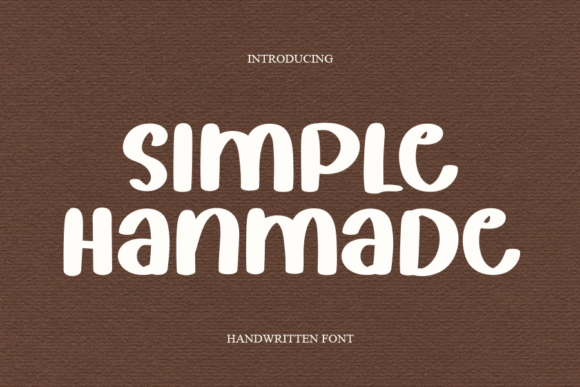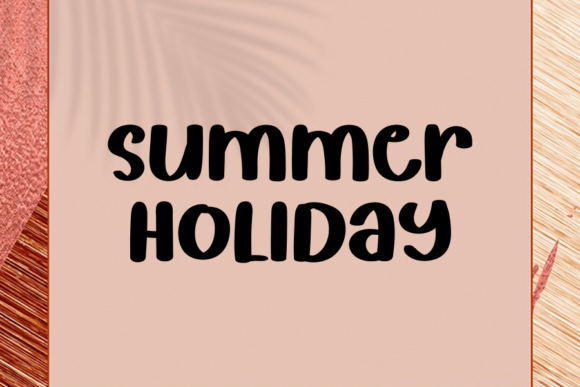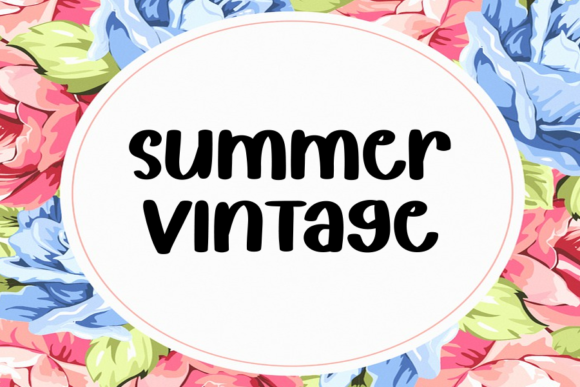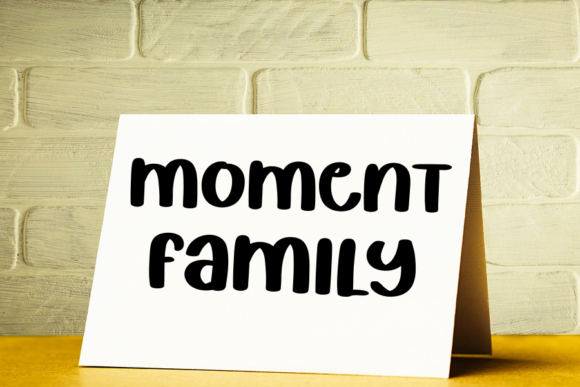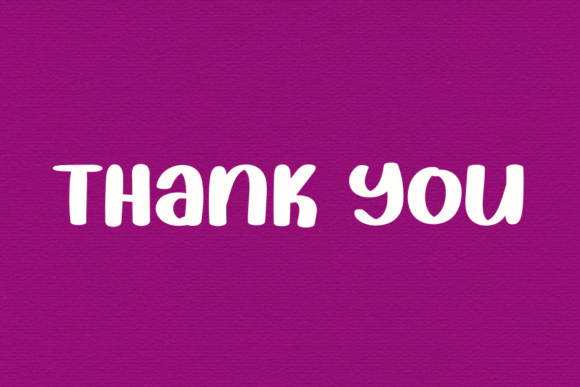
About Simple Hanmade Font
Simple Hanmade is a fun, chic and playful handwritten font. Add it to each of your party invitation, gathering or pretty much any design that requires a touch of youth and joy.